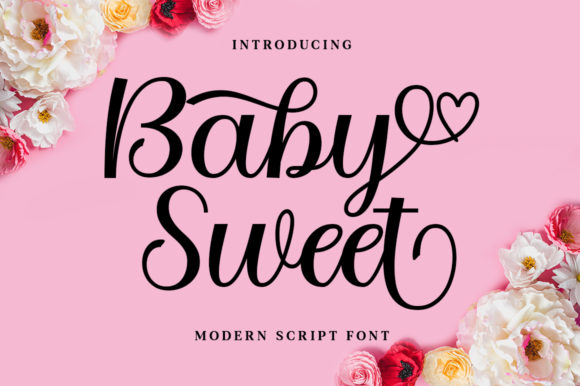
Baby Sweet Font: A Web Designer’s Take on This Playful Typeface
I’ll admit it—when I first pulled Baby Sweet into a web project, I wasn’t entirely sure it would hold its own on screen. As a web designer, I’ve learned the hard way that what looks charming on a specimen sheet can turn into a blurry, unreadable mess on a responsive layout. But after testing this handwritten font across several real client projects—a boutique coaching site, a product landing page, and a portfolio homepage—I can say it surprised me. Baby Sweet brings a warmth and bounce that’s hard to achieve with standard sans serifs, and when used strategically, it gives digital interfaces a genuinely handcrafted feel. Let me walk you through what worked, what didn’t, and where this font really shines in web design.
First Impressions: Personality That Translates to Digital
Baby Sweet is a script font with a distinctly friendly, bouncy rhythm. The letterforms feel loose and playful, with uneven baselines and varied stroke weights that mimic natural handwriting. Unlike many script fonts that feel stiff or overly polished, this one retains a handmade quality that immediately makes a brand feel approachable. In a web context, that warmth is gold. I tested Baby Sweet in a hero section for a life coaching site, pairing it with a clean sans serif body font, and the contrast worked beautifully. The headline—just three words—felt like an invitation rather than a statement. The swashes and ligatures added a refined touch without looking forced, even on a 27-inch monitor.
One thing I appreciated right away: the font’s vertical metrics are well-balanced. It didn’t get cut off or misaligned in the browser, which is something I’ve run into with other handwritten fonts. Baby Sweet sits comfortably on the line, making it easier to set consistent spacing across headings, banners, and buttons.
Where Baby Sweet Excels in Web Layouts
After using Baby Sweet in a handful of projects, I found it performs best in these specific web roles:
In all these cases, I kept the font size generous—never below 24px for display use—and allowed plenty of whitespace around it. Baby Sweet is not a font you want to crowd; it needs room to breathe.
Readability and Performance on Different Devices
I tested Baby Sweet across desktop, tablet, and mobile to see how it held up. On larger screens, the swashes and ligatures rendered cleanly, even when placed over a dark background image. The font’s weight is consistent enough that it remains legible at medium sizes, but I wouldn’t recommend it for anything smaller than 18px—and even then, only for short phrases. At tiny sizes, the handwritten details start to blur, especially on low-resolution mobile screens.
When pairing with a background, contrast is key. Baby Sweet shines on light backgrounds with plenty of breathing room. On dark or busy backgrounds, I found it still works if you add a subtle text shadow or a semi-transparent overlay behind the text. For image overlays, a dark gradient helps keep the letterforms readable without losing the font’s lighthearted personality.
One area that required extra attention: mobile responsiveness. At smaller viewport widths, long headlines set in Baby Sweet can wrap awkwardly because of the tight letter connections. I recommend testing your headlines on a real device and adjusting line breaks or font size manually if needed. Using CSS properties like word-break and hyphens can help, but nothing beats manual testing for a script font with ornamental swashes.
When to Think Twice Before Using Baby Sweet
As much as I enjoy working with this font, it’s not a universal solution. Here are a few scenarios where I’d recommend reaching for something else:
That said, as long as you stay in display territory—headings, short phrases, hero sections—Baby Sweet performs beautifully and adds a layer of emotional resonance that clean fonts often miss.
Font Pairing for Web Projects
Getting the most out of Baby Sweet often comes down to pairing it with a reliable counterpoint. In my projects, I’ve had the best results with two approaches:
Sans serif pairing. A clean, neutral sans serif like Open Sans, Lato, or Nunito provides a calming counterbalance to Baby Sweet’s playful energy. I use the sans serif for body copy, navigation, and secondary headings. This combination feels modern, approachable, and professionally balanced. For the coaching site I mentioned earlier, I paired Baby Sweet with a thin weight of the sans serif in the hero section, then switched to a regular weight for the main content. The contrast was strong enough to create hierarchy without competing.
Serif pairing. If you’re going for a more editorial or refined digital identity, pairing Baby Sweet with a classic serif like Merriweather or Playfair Display adds a layer of sophistication. I tested this on a portfolio for a graphic designer who wanted her site to feel both creative and established. The serif added structure, while Baby Sweet provided the playful accent. This pairing works well for brands that want to feel both trustworthy and original.
In both cases, I keep the body font at a standard weight and avoid adding extra decorative elements near Baby Sweet. The font is already a statement—it doesn’t need competition.